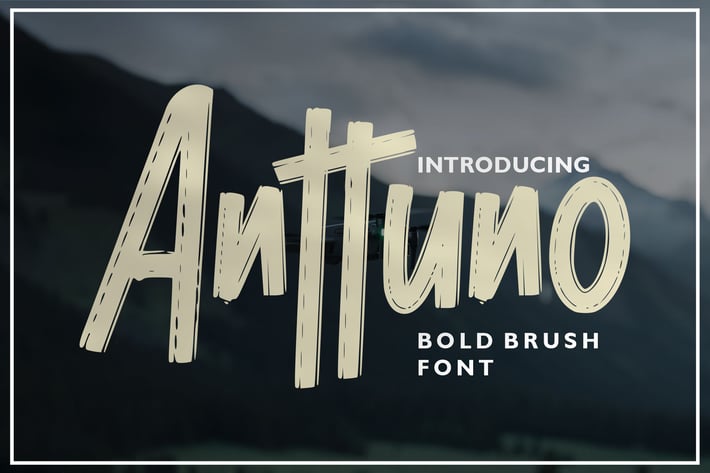
Anttuno | Bold Brush Font
Anttuno | Bold Brush Font with a calligraphy style, So beautiful on invitation like greeting cards, branding materials, business cards, quotes, posters, and more!